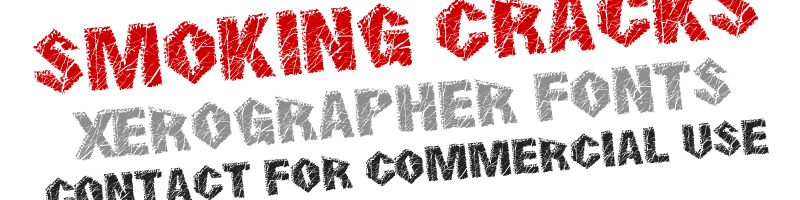
SmokingCracks by Xerographer Fonts is a free eroded display font with broad, forceful caps and a densely shattered surface. Jagged chips and thin fissures cut across the letters, giving the damage a sharp, splintered quality rather than ordinary wear.
Horror posters and extreme-sports merchandise both suit its fractured impact, though they speak to very different audiences. It also fits album covers and game graphics. In branding, the broken-letter motif can become a recognizable emblem for demolition crews, skate labels, or hard-edged entertainment products.